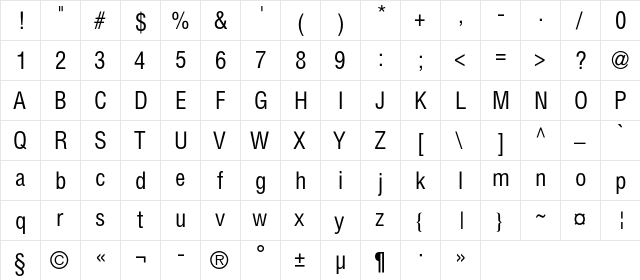
HeliosCond Regular
Design Context for HeliosCond Typeface
HeliosCond offers clean, dependable letterforms without strong stylistic allegiance, making it a practical choice for designers who need flexibility. The condensed width makes it efficient for tight spaces without sacrificing legibility.